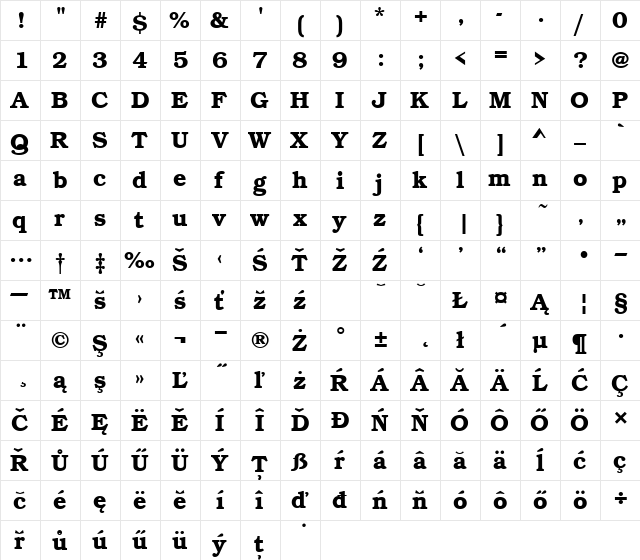
BookmItcTEEDemBol Regular Font Preview
BookmItcTEEDemBol Regular
Design Context for BookmItcTEEDemBol Typeface
BookmItcTEEDemBol takes a measured approach to typography — its balanced proportions and neutral character make it a reliable workhorse for both digital and print work.